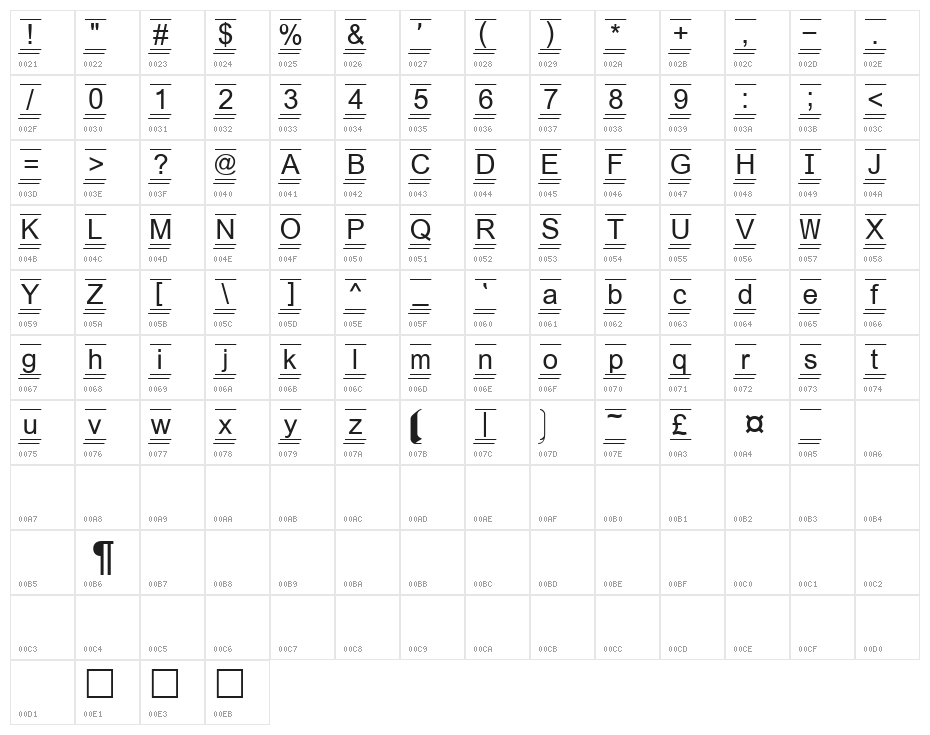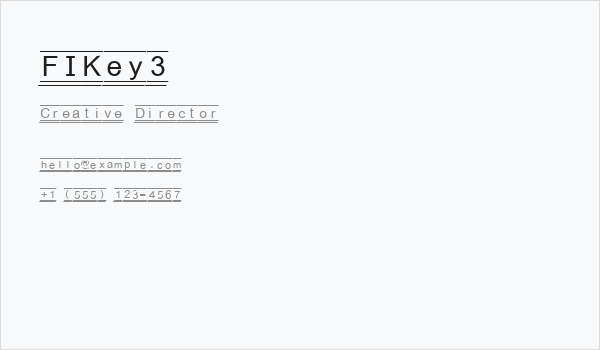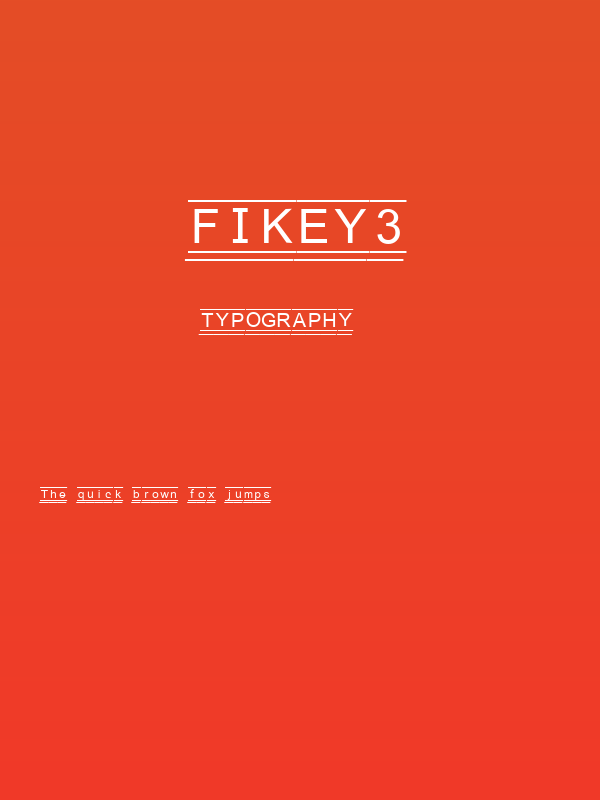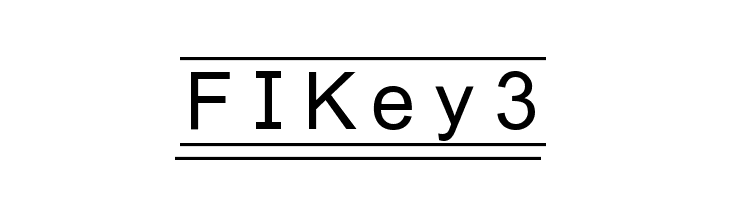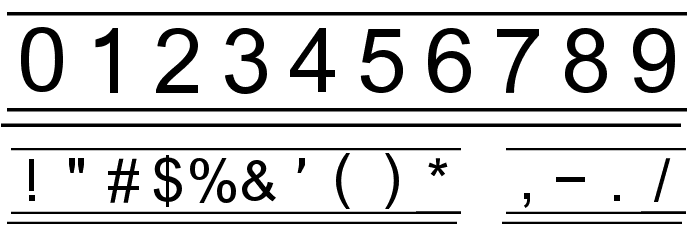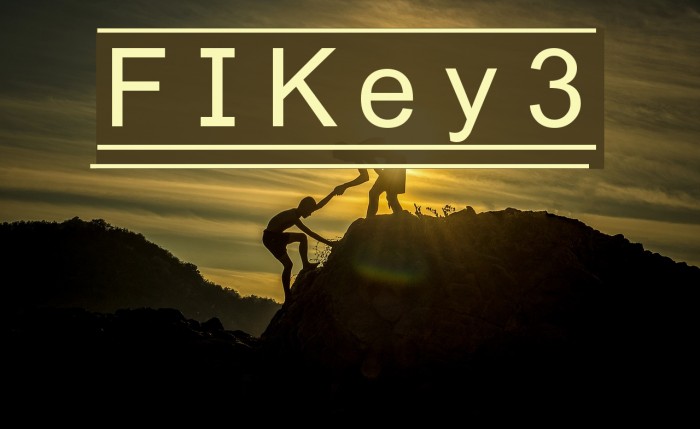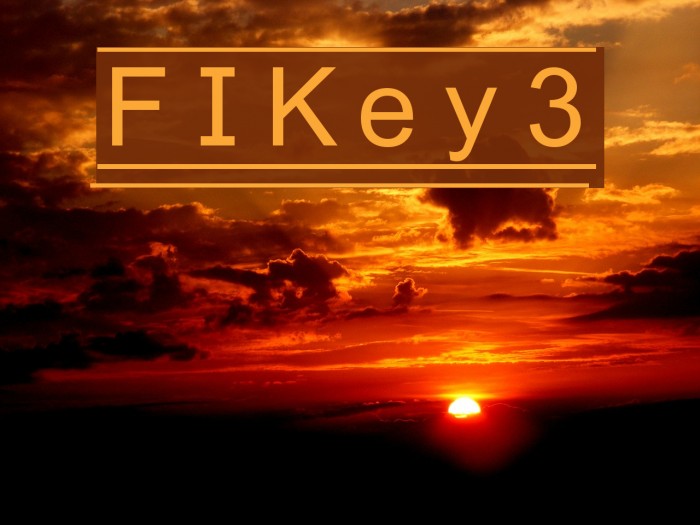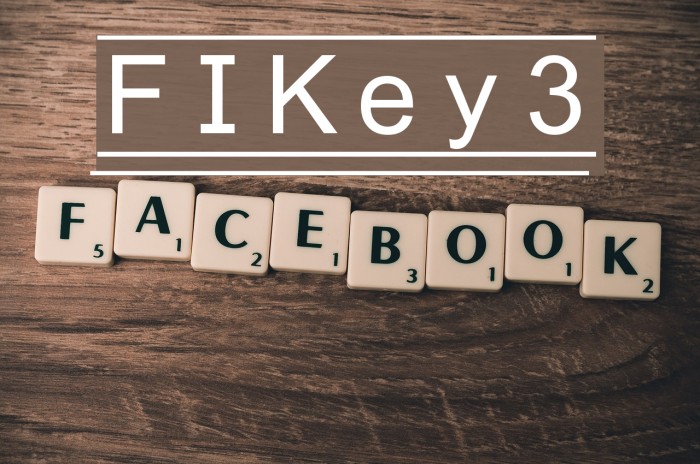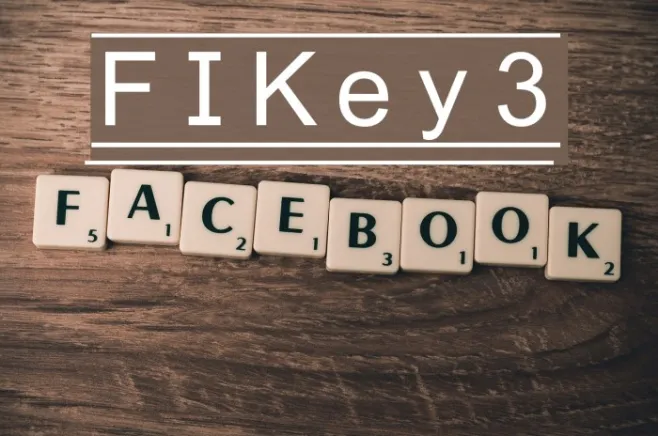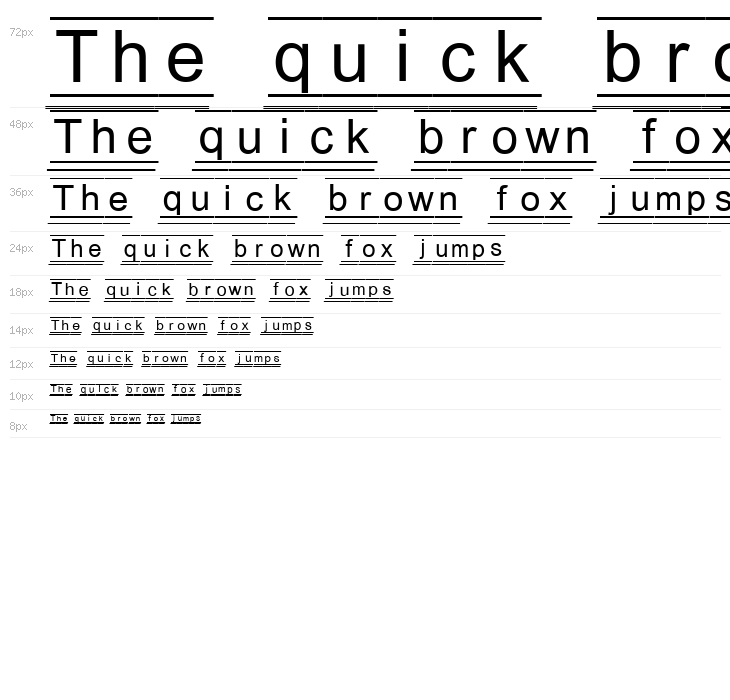
FIKey3 Font
FIKey3 Description
This font features a clean and modern sans-serif style with uniform stroke widths, contributing to a balanced and professional appearance. The characters are well-defined with a geometric influence, making them highly legible. The uppercase letters are bold and assertive, while the lowercase letters maintain a consistent height, enhancing readability. The numerals are clear and straightforward, matching the overall aesthetic. Special characters are distinct and easily recognizable, ensuring versatility in various applications.